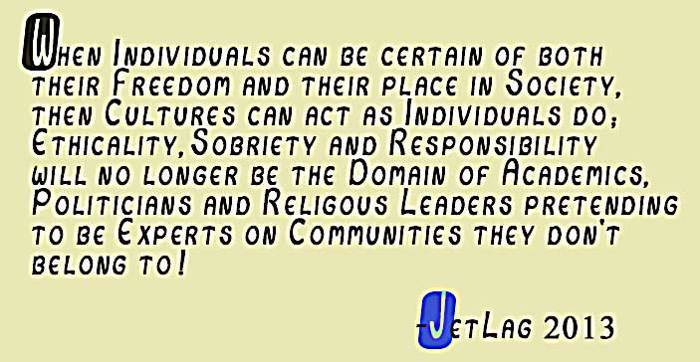
JetLag Slow Font
The annual trip to my Guru's shrine in Tierra Del Fuego; the long hours spent cleaning snails from his mausoleum. How he hated snails! The dear old boy! (While still of course loving them as God's creation. Still they made his skin crawl, and I don't much like them either, except with a nice mole sauce and a very dry Sherry.)
On the Helicopter back to Santiago- where I'd catch the evening jet home, I fantasized about that very dish.The snails in my backpack were for when I got back at last to Annika and Valerie and could forget about weighty spiritual matters for a while- I pictured my self watching the girls frolic quicksilver in the garden- the very antithesis of hunting snails!.
But you know how snippety airport security can get. They seem to think that anything the French like is potentially dangerous. They made me flush my golden bounty down a toilet while one of their cadre- not a high-ranker- watched and, for some reason, counted the snails.
On the plane afterwards, my appetite lost, I was served perchance a bowl of alphabet soup. And succumbing to the fit of nostalgia that that induced in me, I got out my pen, gathered up some napkins, and made drawings of the letters floating there in their thin tomato broth as they slowly disintegrated.
Sleep evaded me and I was dreadfully tired by the time we landed. But Annika had come- like a Valkerie- bringing the old Porsche with it's soft chamois seats and whisper quiet engine to sweep me peacefully home-
-to where Valerie was putting the final touches on the meal they'd spent the day assembling. (There was to be a rum-soaked white cake for desert, I was given to understand.) But I was quite unable to do justice to the celebrations: jet-lagged, I drifted in and out of focus all that evening. The girls giggled and tried to make conversation in English. Alas, to no avail!
I awoke well before dawn on the davenport in the little salon, covered with one of Annika's fun faux furs, and with only a hazy memory of desert. Unable to get back to sleep, I went to the computer- and found that the girls had scanned in my little "soup" drawings while I dozed! they had, all by themselves, put together a rough draft of this font!
So I spent a few happy hours spacing and kerning- bringing it home, as they say- as the golden light of a fresh new Cote d'Or morning slowly filled the solarium.
Myself, I'd have named this "Soup-regular", or something equally unpretentious (and/or spiritual) but the girls had taken a liking to the thing and had an exaggerated sense of its utility and importance. They wanted a more provocative moniker attached to what they rightly felt was at least partly their own work. And so they protested- and pouted so prettily- that I let them do the naming.
So JetLag it is! Use it for political manifestos or for the more serious sort of love letters! Use it when you need to be pointedly- or poignantly- unpretentious (forgive me, my dears?)